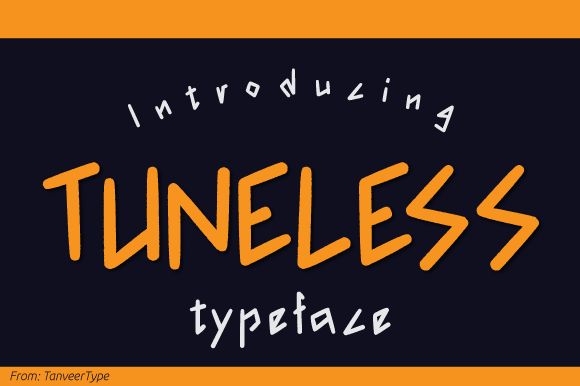
Tuneless Font Review: Sharp Edges for Sweet Branding
I was staring at a blank artboard late last Tuesday, trying to crack the visual identity for a new artisanal jam maker. The brief called for something that felt homemade and sweet but avoided the cliché rustic aesthetic that plagues so many food brands. I needed a typeface that could carry the weight of a logo without feeling heavy or overly decorative. That is when I decided to test Tuneless, a display font that promised a unique combination of softness and precision. After spending forty-eight hours integrating this typeface into a full brand board, packaging mockups, and digital assets, I have some honest observations for designers considering it for their next project.
Tuneless Display Font Characteristics for Artisan Logos
When evaluating Tuneless among other creative fonts, the first thing that stands out is the deliberate tension in its anatomy. The product description calls it "sweet and simple with sharp edges," and in practice, this duality is exactly what makes it effective for logo design. In my test project, I set the brand name in all caps using Tuneless. The sharp terminals prevented the letterforms from looking too cutesy or juvenile, which is a common risk with "sweet" typography. Instead, the sharp edges gave the logotype a contemporary, crafted feel that suggested precision manufacturing rather than messy amateurism.
This specific balance makes Tuneless an excellent candidate for boutique identities where you need to convey warmth without sacrificing professionalism. During the sketching phase, I found that the font holds up beautifully at large sizes. The negative space within the characters is generous enough to remain legible when scaled down for a business card, yet the distinct silhouette remains recognizable on a storefront sign. However, because it is a true display typeface, I would advise against using it for complex wordmarks with more than three words. It shines brightest as a primary logotype or a bold monogram where those sharp details can actually be appreciated by the viewer.
Testing Tuneless on Product Packaging and Label Design
Moving from the logo to the physical product, I applied Tuneless to a series of jar labels and box sleeves to see how it performs in a retail environment. Packaging design requires a hierarchy that guides the eye quickly, and this font excels as a headline anchor. On a matte paper stock, the sharp edges of the letters created a crisp contrast against the textured background. I used it specifically for the flavor names—"Spiced Pear" and "Wild Blackberry"—and the results were striking. The sweetness of the form language aligned perfectly with the product category, while the geometric sharpness ensured the text didn't get lost in the busy photography of the fruit.
One practical observation from this packaging test involves ink spread and production. Because Tuneless features such defined, sharp corners, you need to be mindful of your print specifications. If you are printing on uncoated, absorbent paper at very small sizes, those beautiful sharp points might soften or fill in. In my mockups, it worked flawlessly at 24pt and above, but below 18pt, I noticed the intricate details began to lose their definition. For designers working on physical goods, I recommend requesting a physical proof before finalizing the artwork. This ensures that the "sharp edge" characteristic survives the transition from screen to substrate, maintaining the premium feel of the brand identity.
Tuneless Typography Pairings for Web Headers and Social Media
No display font exists in a vacuum, and finding the right partner for Tuneless was crucial for the website header and social media templates. Since Tuneless has such a distinct personality, it demands a supporting typeface that is neutral and highly readable. I paired it with a clean, geometric sans serif for body copy and subheads. This combination allowed Tuneless to act as the voice of the brand in hero sections and Instagram quotes, while the sans serif handled the functional information like ingredients lists, shipping policies, and blog content.
For social media graphics specifically, Tuneless proved to be incredibly versatile. I tested it on square posts, stories, and Pinterest pins. The font’s inherent rhythm creates natural line breaks that look intentional rather than accidental. When designing carousel covers, the sharp edges of the letters helped create dynamic compositions that stopped the scroll. Unlike script fonts that can be difficult to read on mobile screens, Tuneless maintains high legibility even when overlaid on photographic backgrounds. Just remember to add sufficient padding around the text; those sharp terminals need breathing room to avoid looking cramped against the edges of a phone screen.
Evaluating Tuneless for Editorial Layouts and Commercial Assets
While testing Tuneless across various commercial fonts applications, I also explored its potential in editorial design. I laid out a sample recipe booklet and a seasonal lookbook to see if the font could sustain interest across multiple pages. The verdict here is nuanced: Tuneless is fantastic for pull quotes, chapter titles, and sidebar callouts, but it should never be used for long-form body text. The stylized nature of the letterforms causes eye fatigue after just a few lines. It is strictly a headline and accent player in editorial contexts.
However, for short-form commercial assets like flyers, event posters, and promotional banners, it is a powerhouse. The font carries enough visual weight to eliminate the need for excessive graphic embellishments. In one poster mockup, I used Tuneless as the sole typographic element against a solid color field, and it still felt complete. This efficiency is valuable for designers working with tight budgets or minimal branding guidelines. It reduces the need for additional illustration or iconography because the typeface itself provides the necessary decorative interest. Just be sure to check the licensing terms carefully if you plan to use it in templates for resale or client work, as commercial usage rights for display fonts can vary significantly.
Practical Limitations and Licensing Considerations for Tuneless
As much as I enjoyed working with Tuneless, it is important to address where this display font falls short to manage expectations. As mentioned earlier, readability at small sizes is its primary limitation. Do not attempt to use this for fine print, legal disclaimers, or navigation menus. It is also likely too informal for corporate finance, medical, or legal branding where trust is communicated through traditional serifs or stable grotesques. Tuneless belongs in lifestyle, food, fashion, craft, and creative industries where personality is a feature, not a bug.
Before purchasing or downloading, always review the available styles and alternates. In my testing, having access to ligatures or stylistic alternates would have been beneficial for customizing the logo further to avoid generic spacing issues. Check if the foundry includes multilingual support if your brand operates internationally, as missing glyphs can break the visual consistency of a global campaign. Finally, verify the webfont availability. A display font that looks stunning in a static PSD but fails to load correctly or renders poorly on browsers will ruin a responsive web design. Confirming these technical details upfront saves hours of rework later. When used within its sweet spot, Tuneless is a delightful tool that brings a sharp, modern edge to otherwise soft branding concepts.